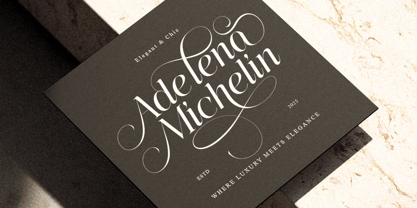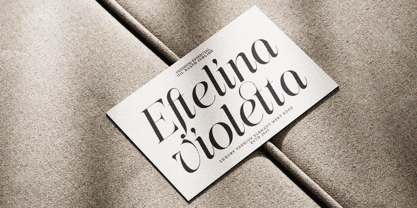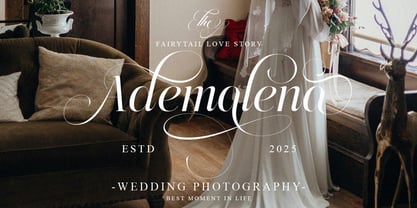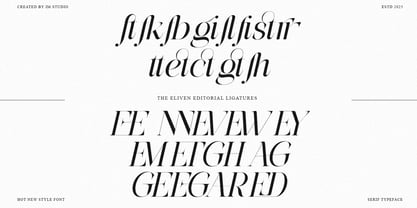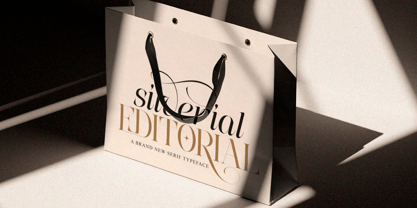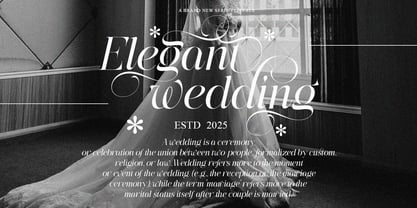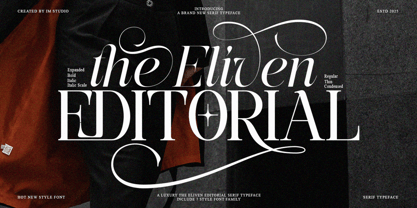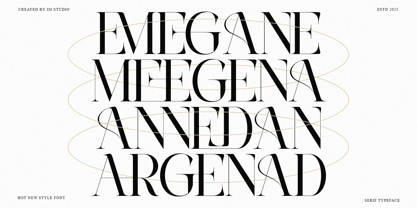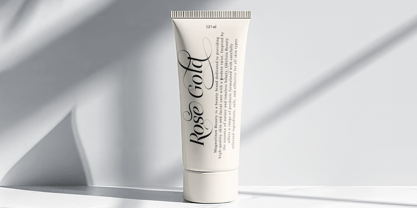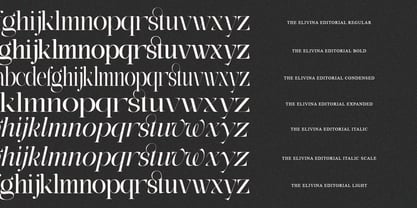
The Eliven Editorial Family
The The Eliven Editorial Family Font Family was designed by Ikhsan Maulana and published by IM Studio. The Eliven Editorial Family contains 7 styles and family package options. More about this family
Introducing The Eliven Editorial Family Includes 7 Fonts Files – A Modern Serif for Timeless Elegance Discover the perfect balance of classic sophistication and contemporary design with The Eliven Editorial, a refined serif typeface crafted for versatility and impact. With high-contrast strokes, graceful curves, and true italics, it brings strength, beauty, and readability to every project. From editorial layouts and branding to web design and packaging, The Eliven Editorial elevates your work with effortless elegance. Its thoughtfully designed ligatures, extensive OpenType features, and multilingual support (90+ languages) ensure both style and functionality across all media. Key Features: Effortless Elegance – Clean lines and balanced proportions for versatile use. Elegant Ligatures – Unique letter combinations for distinctive style.